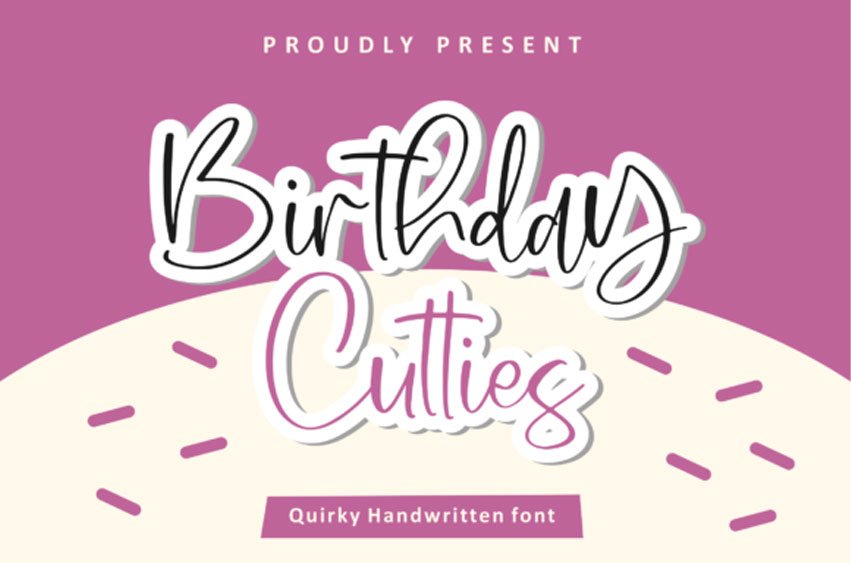
Birthday Cutties Font
Birthday Cutties Font is a quirky handwritten font perfect for logos, branding projects, homeware designs, product packaging, mugs, quotes, posters, shopping bags, T-shirts, book covers, name cards, invitation cards, greeting cards, labels, photography, watermarks, special events, or any project you wish to create!
Perfectly crafted to meet all your design needs.